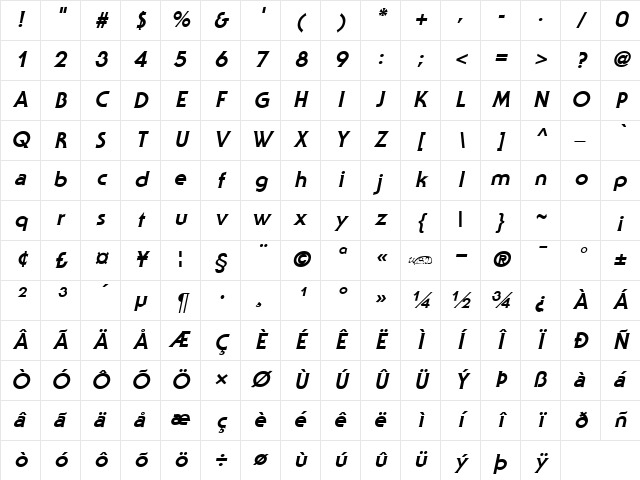
Staid Gothic ExtraBold Italic
Staid Gothic ExtraBold Family
Design Context for Staid Gothic ExtraBold
Staid Gothic ExtraBold takes a clean, functional approach - its unadorned letterforms prioritise legibility and work reliably across screen and print environments. The slanted form adds forward momentum and visual energy. Its bold stroke weight gives it real presence on the page.
Font Pairing: Use Staid Gothic ExtraBold for headlines alongside a lighter-weight sans or serif for body copy to establish clear visual hierarchy.
Pro Tip: Use Staid Gothic ExtraBold for UI labels, navigation, and short-form body copy where clean legibility is the priority.